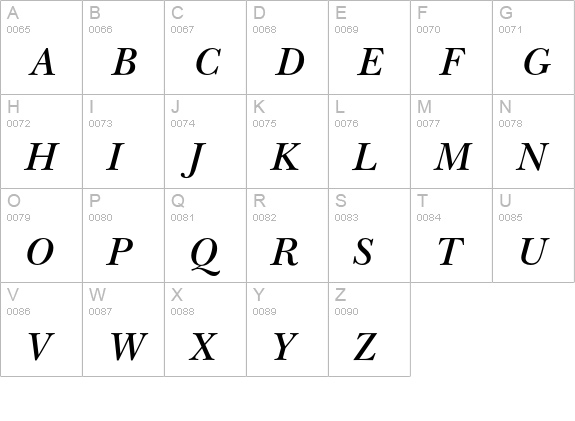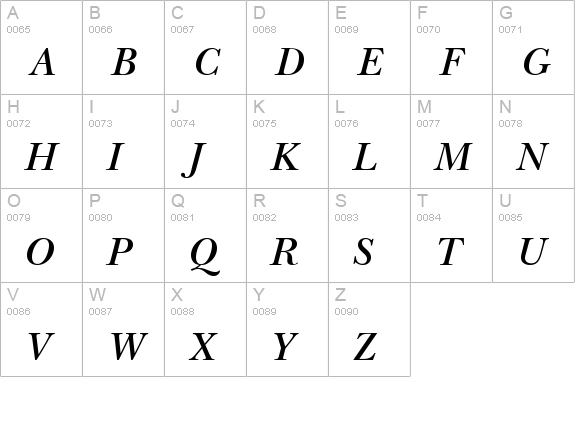
NewBaskervilleEF-SemiBoldIta font is a sophisticated and elegant typeface that exudes a sense of classic beauty with a modern twist. Its semi-bold italic style adds a touch of flair and sophistication to any design project. The gracefully slanted letters and refined curves make this font perfect for conveying a sense of elegance and professionalism. What's even better is that NewBaskervilleEF-SemiBoldIta font is available for free download at FontsMarket.com. This means you can easily access and use this stunning typeface in your projects without any cost. Whether you're designing invitations, branding materials, or any other creative work, NewBaskervilleEF-SemiBoldIta font is a versatile choice that will elevate your designs to the next level. Don't miss out on this opportunity to enhance your projects with this beautiful and free font.